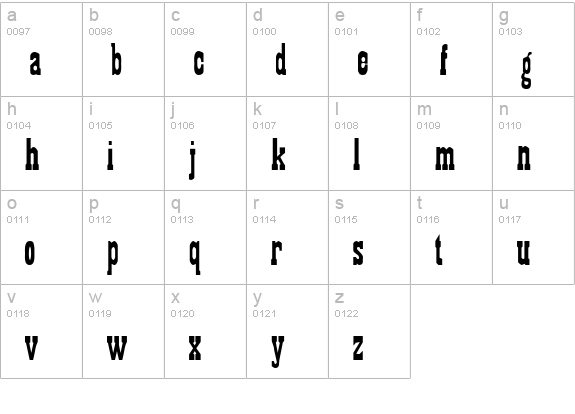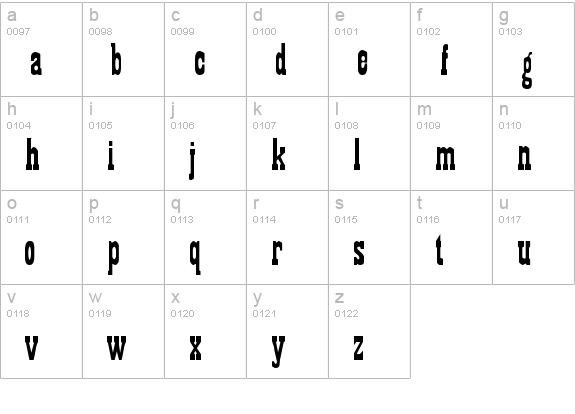
Gambler Font Details
Gambler font is a captivating and stylish typeface that is perfect for adding a touch of sophistication to your designs. This font is characterized by its sleek and modern letterforms, with clean lines and sharp angles that exude a sense of elegance and confidence. Designed with versatility in mind, Gambler font is suitable for a wide range of creative projects, including branding, logos, packaging, posters, and more. Its unique and eye-catching design will instantly grab the attention of your audience, making it perfect for making a bold statement. One of the standout features of Gambler font is that it is available for free download at FontsMarket.com. This means that you can easily access this stunning font without having to spend a dime. Whether you are a professional designer or a hobbyist, this free font offers you the opportunity to elevate your designs without breaking the bank. With its extensive character set, Gambler font supports multiple languages, making it a versatile choice for global projects. Additionally, its high-quality and well-crafted design ensures that it looks great in both print and digital formats. So why wait? Download Gambler font for free at FontsMarket.com and unleash your creativity with this stunning and versatile typeface. Let Gambler font be the perfect choice to add a touch of elegance and sophistication to your designs.